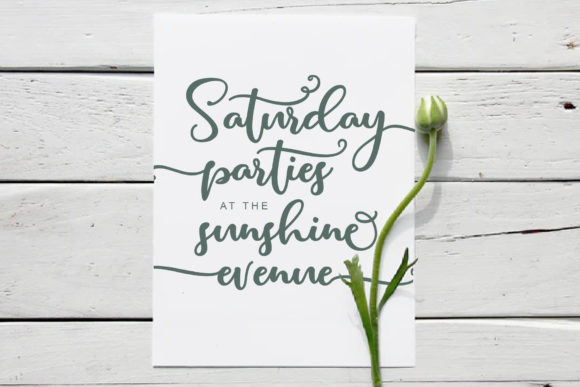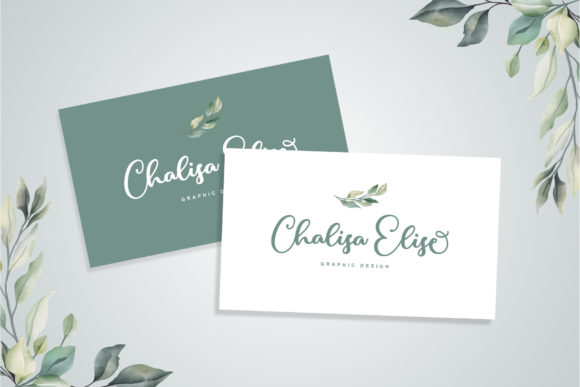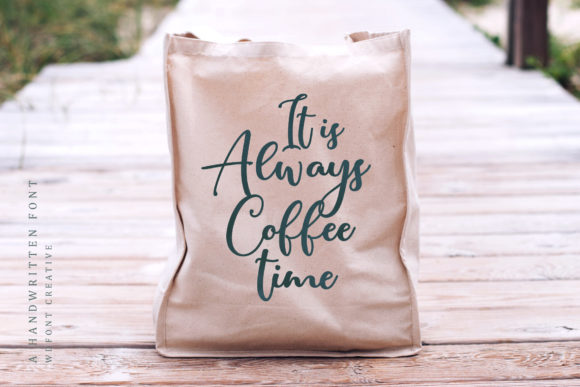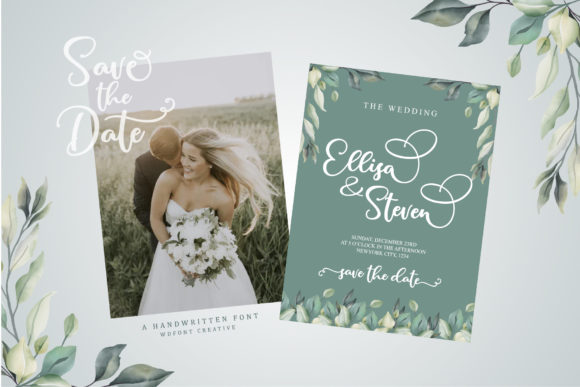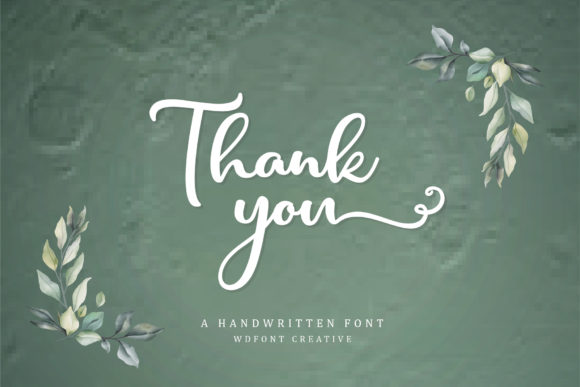
The Quest for the Perfect Font: Discovering Bottom Cut
I still remember the frustration of working on a project, hours spent crafting the perfect design, only to be held back by one thing: the font. It was for a client’s greeting card business, and I needed something fresh, playful, and with a touch of whimsy. The brief was simple, yet the search was anything but. That’s when I stumbled upon Bottom Cut, a calligraphy font that instantly caught my eye with its unique blend of fun, cuteness, and connectable hearts.
First Impressions: A Fresh, Funny, and Cute Calligraphy Font
Bottom Cut is described as a new, fresh, funny, and cute calligraphy font, and it truly lives up to its description. This font is not just any ordinary font; it’s a creative tool that can elevate your designs, whether you’re working on greeting cards, branding materials, business cards, quotes, posters, or more. Its distinctive feature? Hearts that can be connected, adding a playful touch to any project.
What I Love About Bottom Cut ✨
- ✅ Unique and eye-catching design with connectable hearts
- ✅ Perfect for a variety of projects, from greeting cards to posters
- ⚠️ Some users might find the font a bit too playful for formal projects
- ⚠️ Limited availability of certain characters or glyphs in specific software
While the specific inspiration behind Bottom Cut remains a mystery, it’s clear that the designer aimed to create a font that would bring joy and whimsy to creative projects. The inclusion of connectable hearts suggests a thoughtful approach to making the font versatile and fun to use. Whether intended or not, Bottom Cut has become a go-to for designers looking to infuse their work with a bit of playfulness.
Q: Does Bottom Cut support OpenType features?
A: Yes, Bottom Cut supports OpenType features, including glyphs and stylistic alternates. This allows for a high degree of customization and creativity in your designs.
Q: Can I connect the hearts in every word?
A: The ability to connect hearts depends on the specific characters and the software you’re using. Some setups might allow for easy connection, while others might require a bit more manual adjustment.